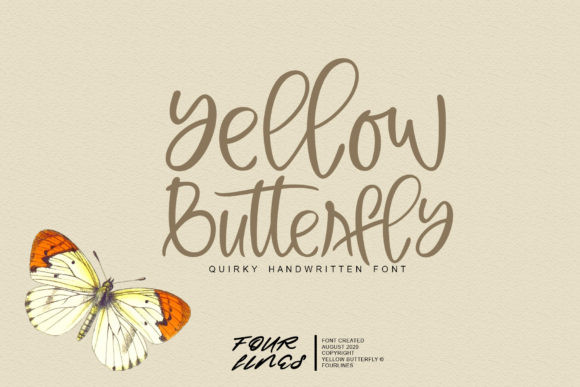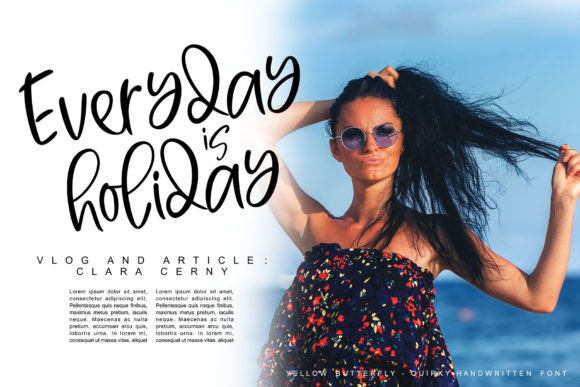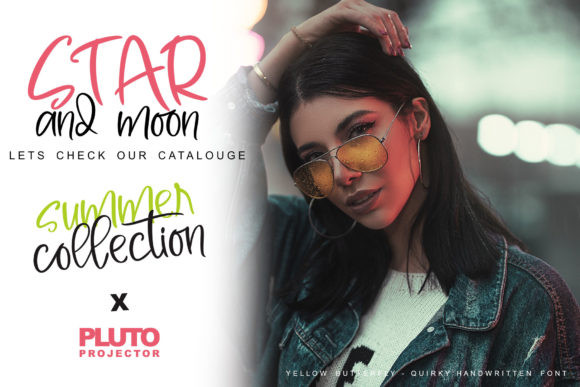
Yellow Butterfly Font
Yellow Butterfly is a flowing and timeless handwritten font. It looks stunning on wedding invitations, thank you cards, quotes, greeting cards, logos, business cards and every other design which needs a handwritten touch. It features a varying baseline, smooth lines, gorgeous glyphs and stunning alternates.